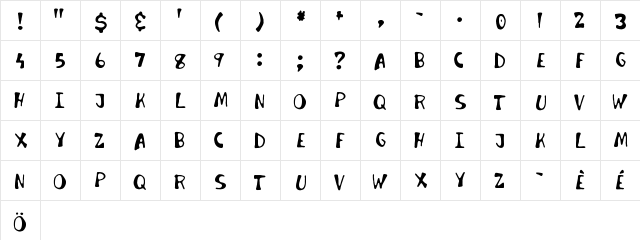
Invader Candy Regular
Design Context for Invader Candy Typeface
Invader Candy is a composed and adaptable typeface that performs quietly and consistently across a wide range of design contexts.